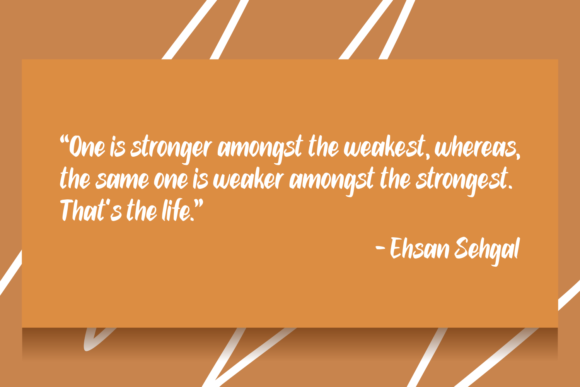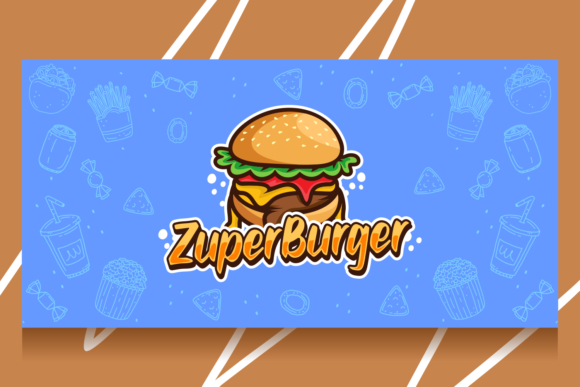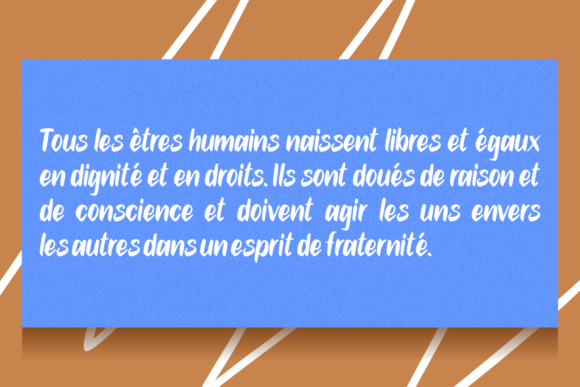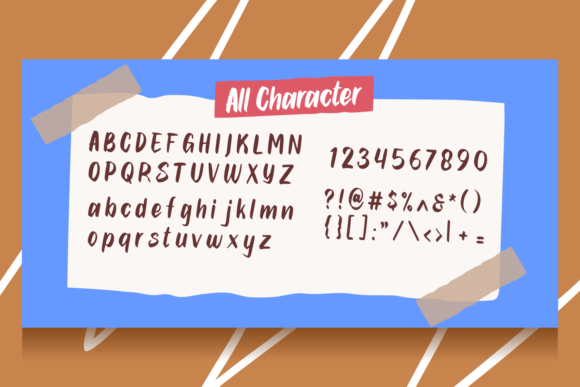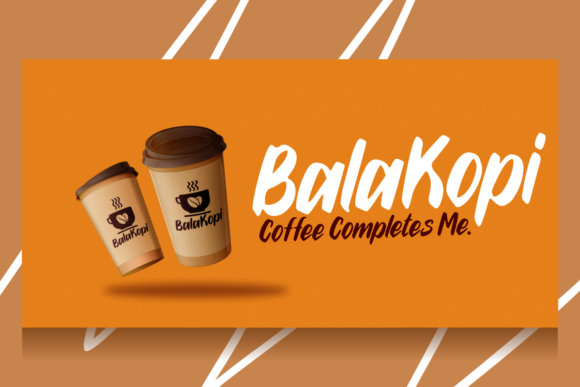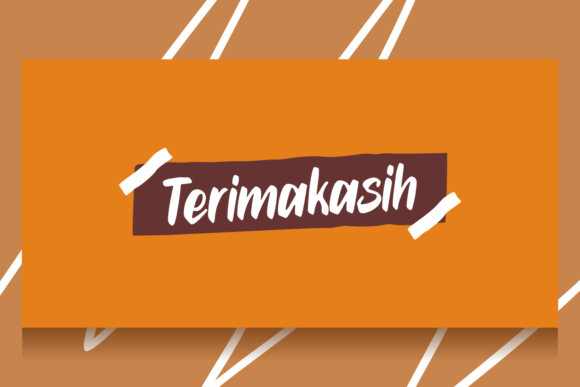
Sipur Knight Font
About Sipur Knight Font
Sipur Knight is a cute and simple paint brushed lettered handwritten font that can be used for all chalkboard quotes or teaching material! Its authentic look will add a personal and realistic feel to your designs.